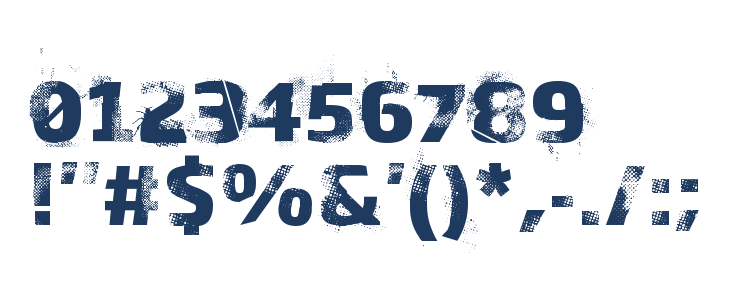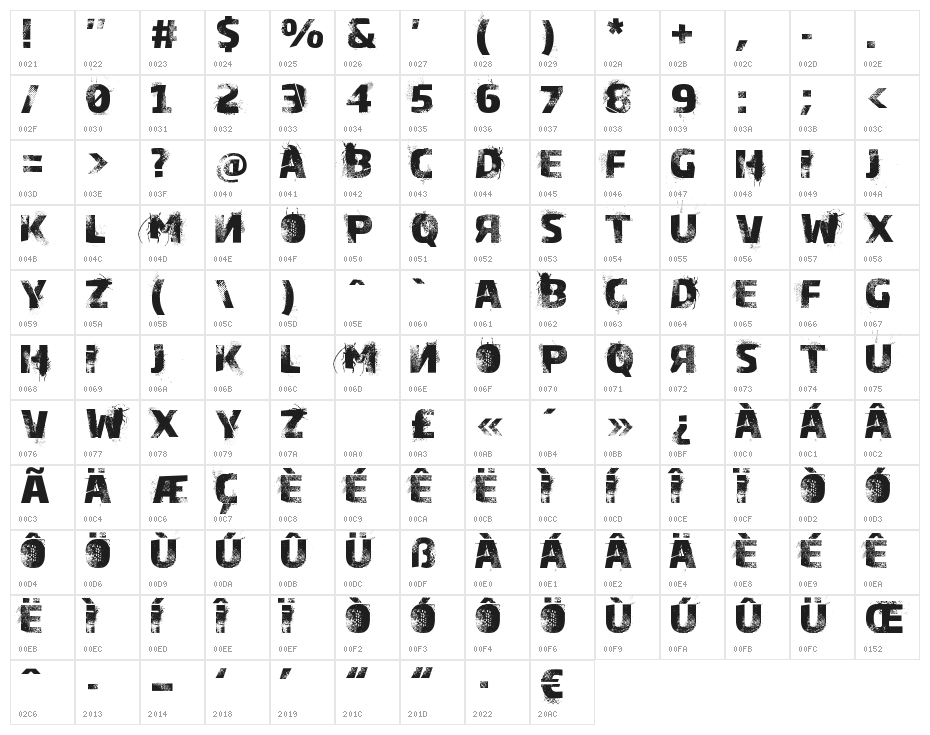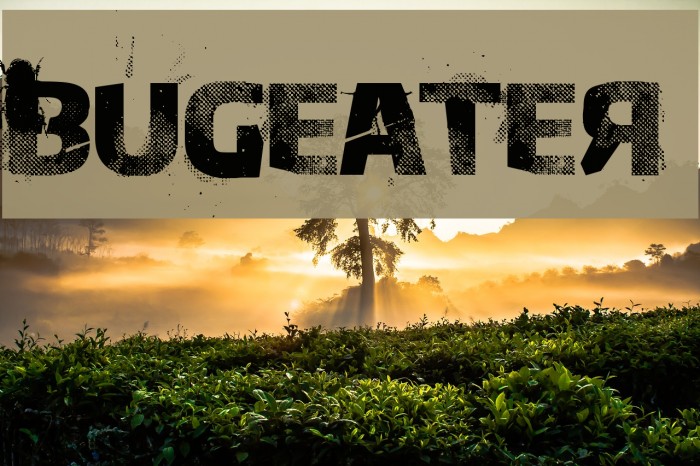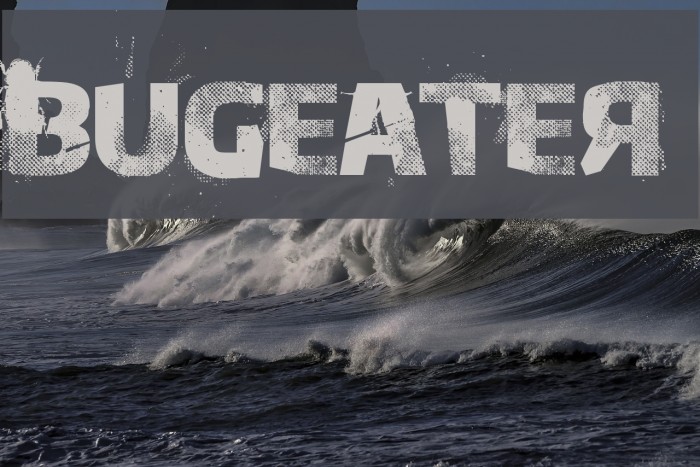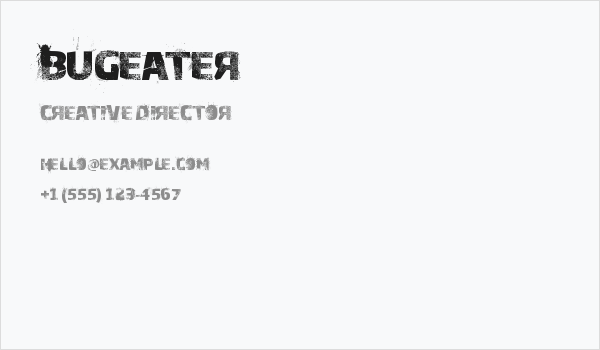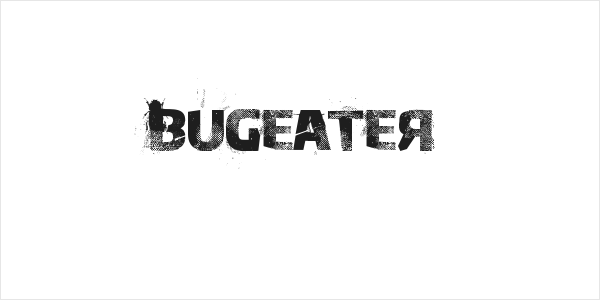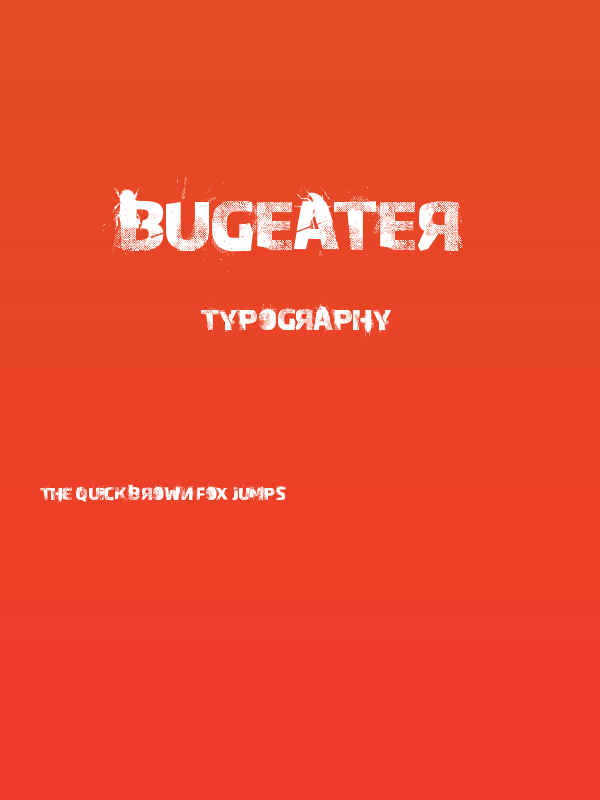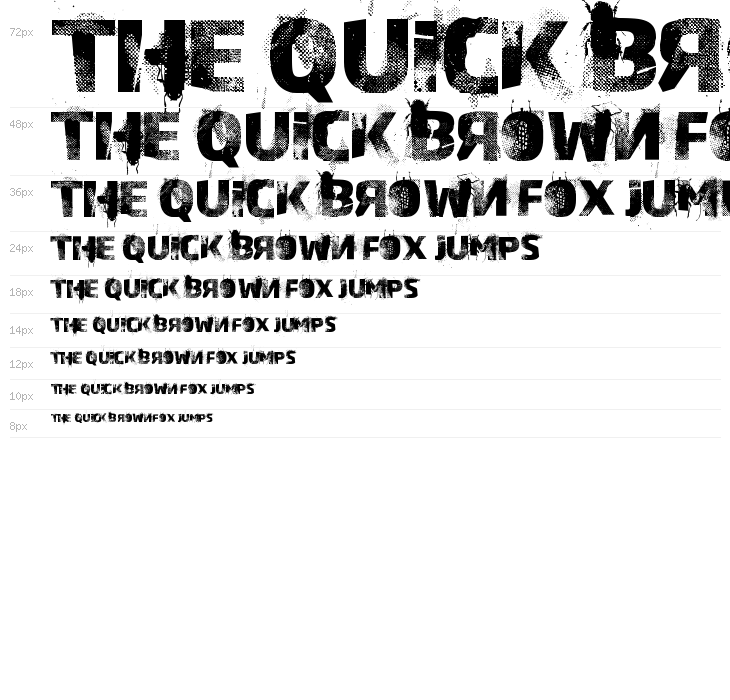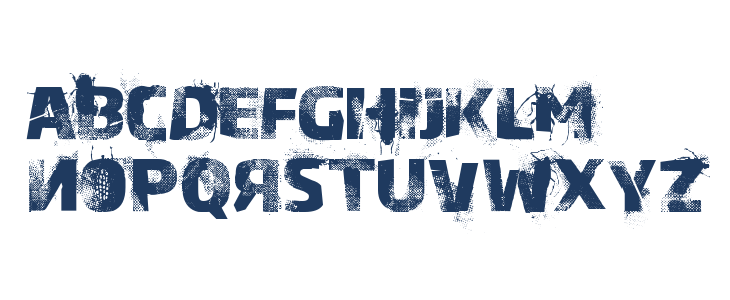
Bugeater Font
Bugeater Description
This font features a unique and edgy design with a distressed, grunge-like texture. Each character is adorned with insect silhouettes, adding an unconventional and bold aesthetic. The letters are bold and blocky, with irregular edges that create a sense of movement and chaos. The texture gives the impression of decay or erosion, making it ideal for projects that require a gritty or rebellious vibe. The inclusion of insects adds a playful yet dark twist, perfect for creative and daring designs.
| Proposed Projects | Ideal for horror movie posters, edgy album covers, streetwear branding, or any project seeking a rebellious and gritty look. |